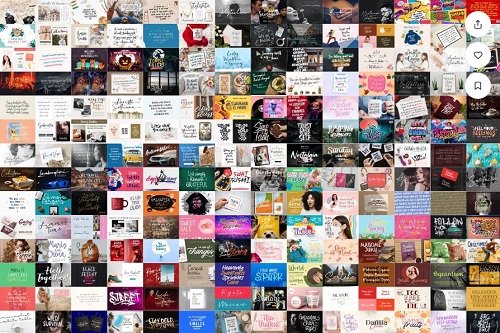
The Wonderful Collection Font Bundle - 7075181
Introducing The Wonderful Collection, with much variatons handwritten, typeface, calligraphy, horror style,
valentine, signature and more to supply your creative need. wink
All fonts also come with Multi-Lingual Support!
200+ Fonts :
Adelaide Georgie
Alafyouswirly
Alesantria Mane
Amperas
Amrinnatica
Ancukaseyo
Antiokhia
Aokahori
Apricotsy
Aprillia Wijaya
Asher Punk
Bankai
Barristar
Bellamosley
Bennington Glow
Bigsby Hills
Billie Kimber
Bittle Almond
Bleakfall
Blue Season
Bluehonestfont
Brandy Coffee
Burnfolk
Butter Tropical
Byemalkan
Callmounth
Catarina Devon
Catastrophist
Cayed
Chalkvibes
Chicola Smoothy
Christmas Notification
Christmas Scriptty
Christnolan
Chunky Hulrey
Cinemair
Clothingline
Comickes
Cosmos Logic
Creamy Garden
Deardorf
Deathridge
Democrasweet Smooth
Diola Gonel
Eastlovely
Eiffel Story
Elfeylasting
Elfira
Elvishwild Alternate Blocky
Emerald Cole
Fachristar
Fake Nice
Fireheart
Galih Ratna
Ganghoods
Gaze Nozarashi
Gecko Moria
Gloomy Mummy
Golden Motion
Goldenlead
Goldiolus
Good Sunset
Goodbye Anjing
Goodnesscakes
Gradechalky
Greater Delight
Greathy
Grimnotes
Grindline
Guardian Snowing
Han Le Tours
Happiness Machine
Hapsary
Haypearl
Heartcraft
Her Song
Herojuana
Hidebeast
Highfilm
Hildaquin
History Stranger
Historyline
Hogback
Hokia
Holykadot
Hometheater
Honey Waffles Duo
Horror Corps
Hummer Miller
Itadakimase Duo
Jannatta
Jaqartall
Jee Wish
Jimmy Collins
Jolystmas
Jungledise
Kagomechan
Kiky
Kreasi Literasi
Kutilang
La Maison
Leroyce
Little Comet
Luckyfield
Luckymoon
Maestrography
Magnolia Sparkling
Magnolin Deliciousy
Malpicamoln
Manadis Deadly
Mandalaz Sensei
Mandy William
Manly Signature
Manlyscript
Mariangelica
Marlrock
Mayrisand
Mealky Winter
Melly Honney
Memorynote
Meowtalk
Midspicy
Millerline
Millions Journey
Minescript
Miqueltan
Mocha Cherry
Moon Charming
Moonlily
Morning Glow
Morpline
Moviecal
Musegrallty
Mykilove
Mythical Christmas
Mythsmiley
Naofumi
Neug Asia
Ninetys Starfox
Nittiest Fitting
Nurani
Oceanic Cocktail
Oceansunshine
Omniface
Onigashima
Onlychalk
Originthink
Orion Chalk
Orleymore
Ottama
Owbeirak Collection
Oyscake
Pathway Artistry
Petter Secret
Placepage
Qarllottey
Quarts Pachino
Queensouthy
Quesited
Quichflour
Quiet Sickless
Quimil
Qunka
Ralitta
Raya Feast
Rayleigh
Rowstead
Rumini Namamu
Shallifronthe
Shibalady
Shinymotion
Silentclaire
Sing Buneng Bae
Smelly Peach
Social Melinda
Soul Doubt
Soulyouth
South Paris
Spicy Garlic
Spooky Whisper
Sprinkle Magical
Standard Jeglek
Star Whisper
Steally Grace
Sticky Buttercup
Strenghtque
Summer Lightning
Sunny Bunny
Sydney Tears
The August
The Goblick
The Milligram
The Old Falcons
The Wild Chaos
Throostle
Timegoing
Tinna Bell
Tokyosign
Transcript
Trilogi Materialism
Twist Jelly
Uhudscript
Urban Fest
Val Edeline
Wadezix
Welluxx
Wildwick
Wishbone Tea
Xwisth
Yel Yeah
Youth Richfield